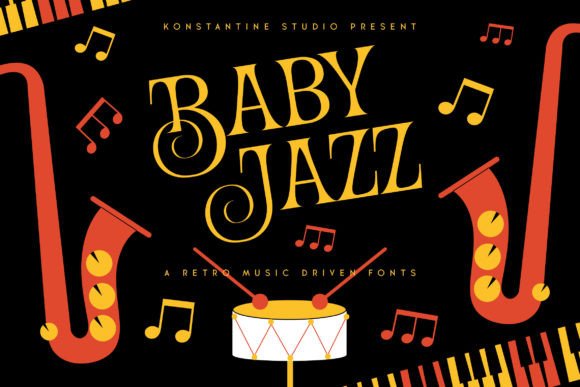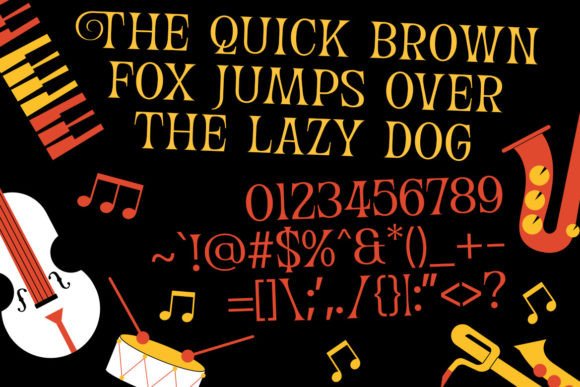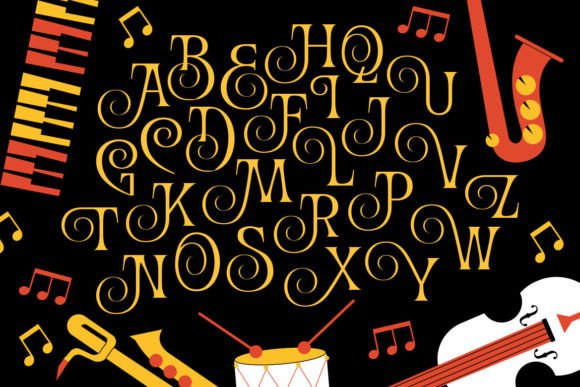
Baby Jazz Font
About the Baby Jazz Font
Introducing the Baby Jazz Font, a beautifully crafted typeface designed to elevate your creative projects. Baby Jazz is a font inspired by the visuals of music poster events and festivals back in the 80s and 70s era. Matched up so well with the vintage cartoons and comical vibes from the same moments.
Perfectly fit for posters, band merchandise, logo, branding, movie title, serials, comic, album artwork, cover artwork, music projects, and many more.
Its playful, retro-inspired style makes Baby Jazz ideal for headlines, posters, and branding projects requiring a touch of vintage charm and bold energy. It works exceptionally well for projects targeting younger demographics or those with a focus on music, entertainment, and pop culture. However, its condensed letterforms and strong personality make it less suitable for body text or UI elements where readability is paramount.
Consider pairing Baby Jazz with a clean sans-serif like Futura for a balanced contrast, or a slightly more playful script font such as Pacifico for a more cohesive retro aesthetic. For a more modern twist, a geometric sans-serif like Montserrat can offer a compelling counterpoint to its organic forms.
The font’s overall personality is undeniably bold and fun, yet retains a degree of sophistication thanks to its well-defined letterforms. This makes it versatile enough for various applications, provided its inherent limitations in terms of readability for large blocks of text are considered.
Baby Jazz Font Usage Examples
Baby Jazz Font Example